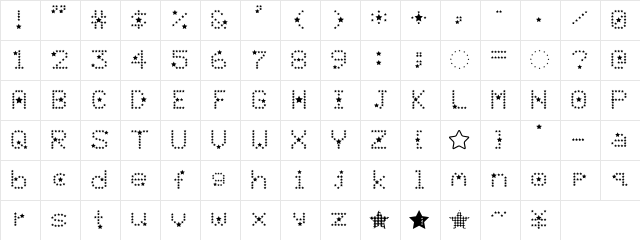
Complete Divo Regular glyph index. Displaying only characters natively supported by Divo Regular font.
Divo is a composed and adaptable typeface that performs quietly and consistently across a wide range of design contexts.